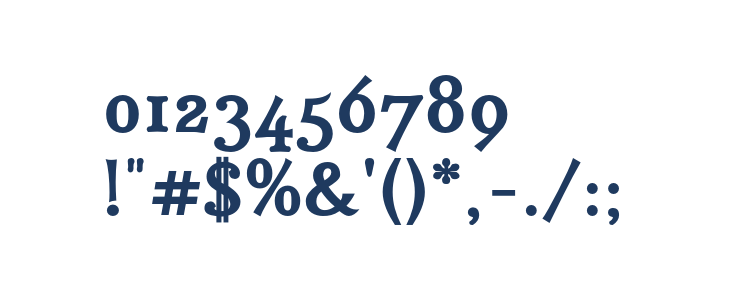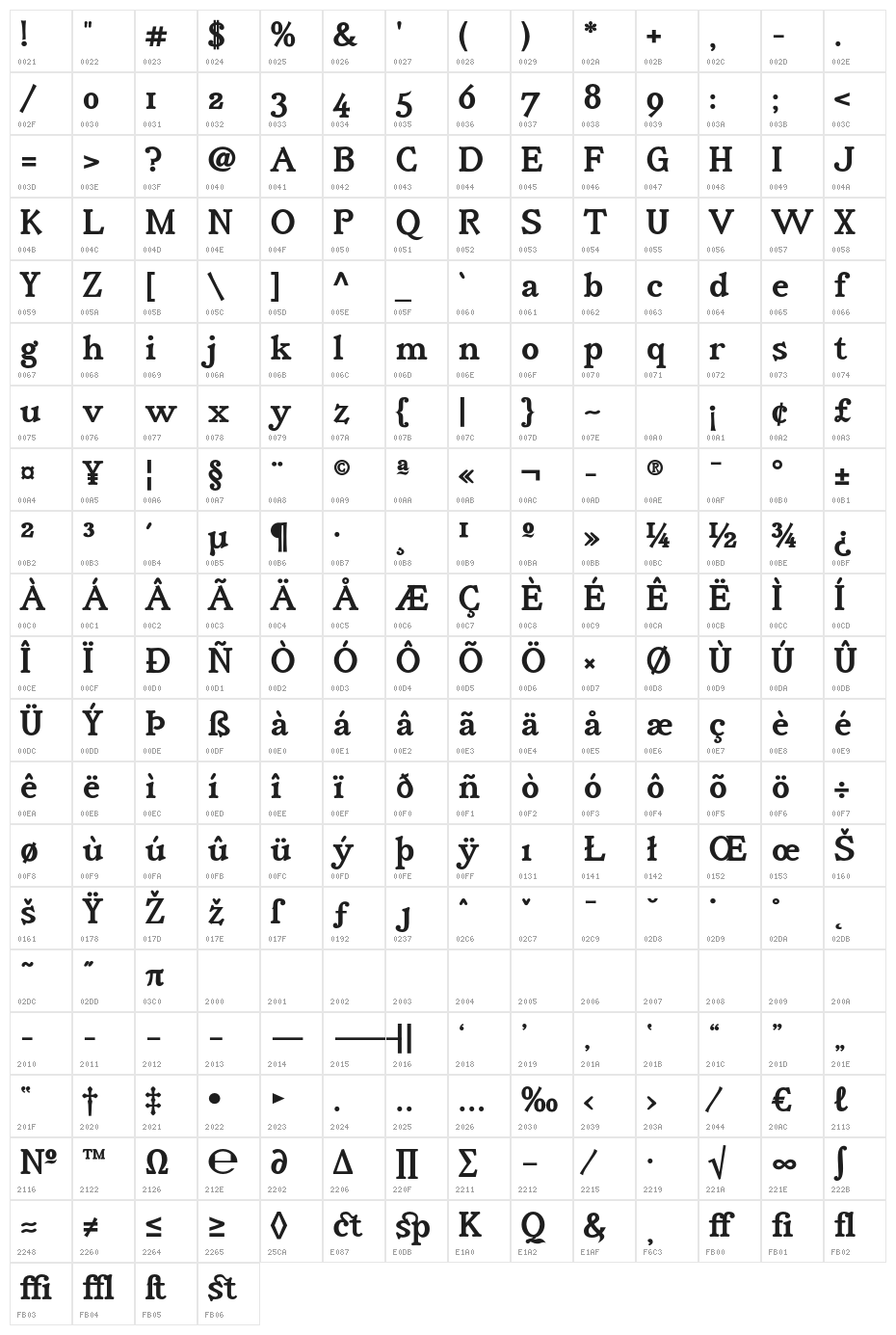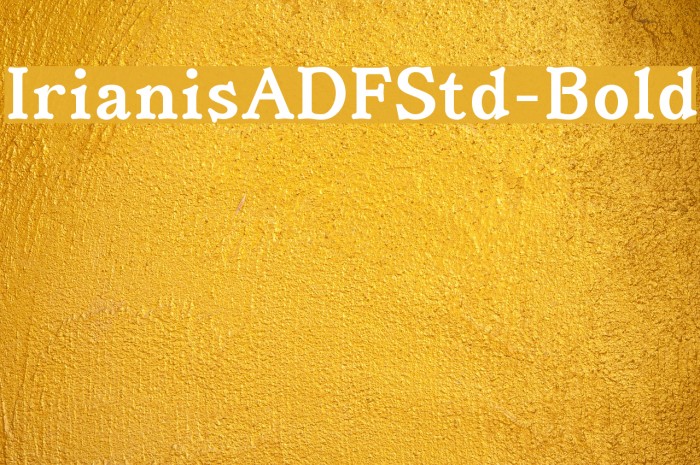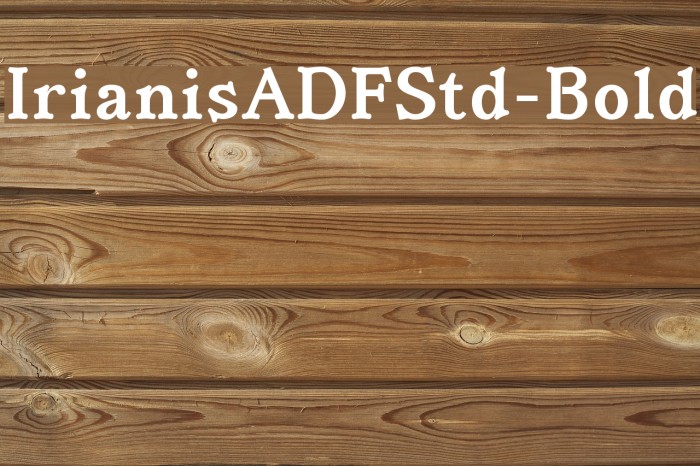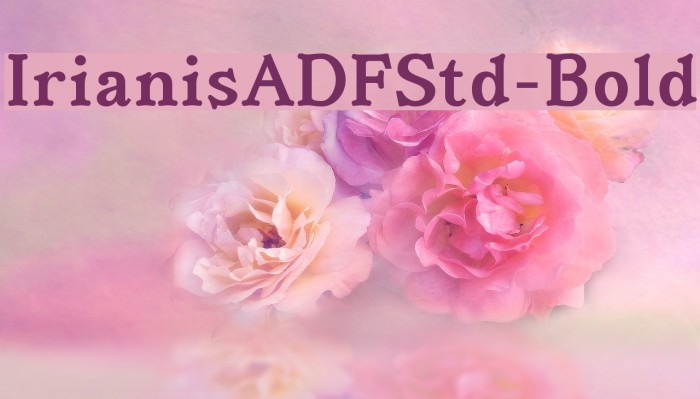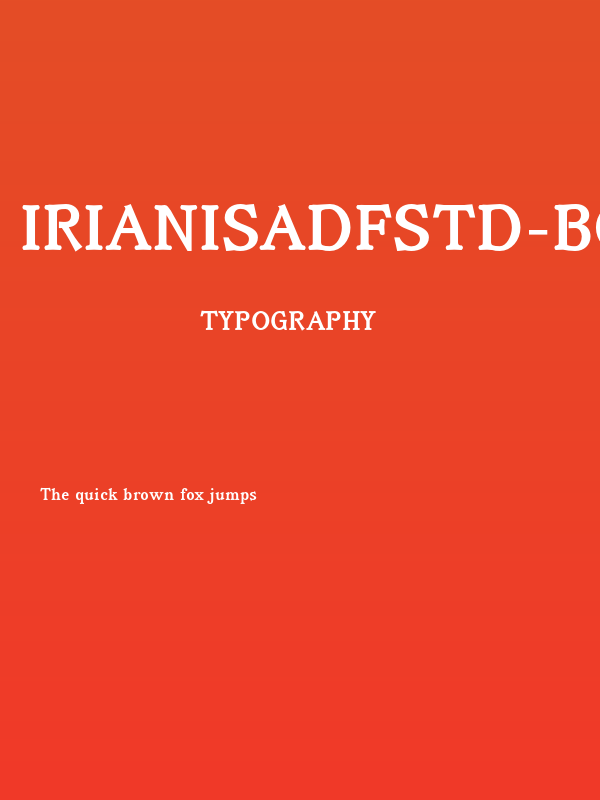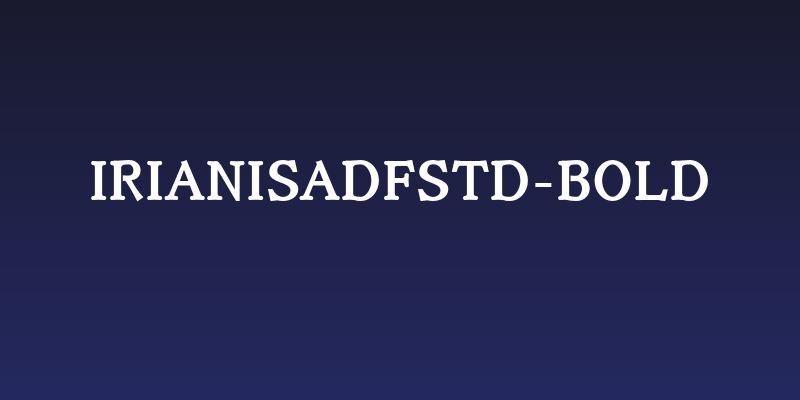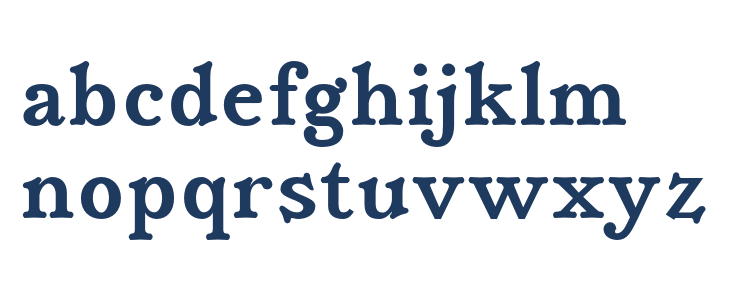
IrianisADFStd-Bold Font
IrianisADFStd-Bold Description
This font features a bold and robust serif design, characterized by its strong and pronounced serifs that give it a classic and authoritative appearance. The uppercase letters are tall and commanding, while the lowercase letters maintain a consistent and harmonious flow. The numerals are clear and easily distinguishable, making them suitable for both text and display purposes. Special characters are crafted with attention to detail, ensuring they blend seamlessly with the overall style. The font's bold weight and high contrast between thick and thin strokes enhance its readability and visual impact.
Overall StyleClassic
Use CaseHeadlines, Logos, Editorial
Proposed ProjectsThis font is perfect for projects that require a classic and authoritative look, such as book covers, editorial layouts, branding, and signage.